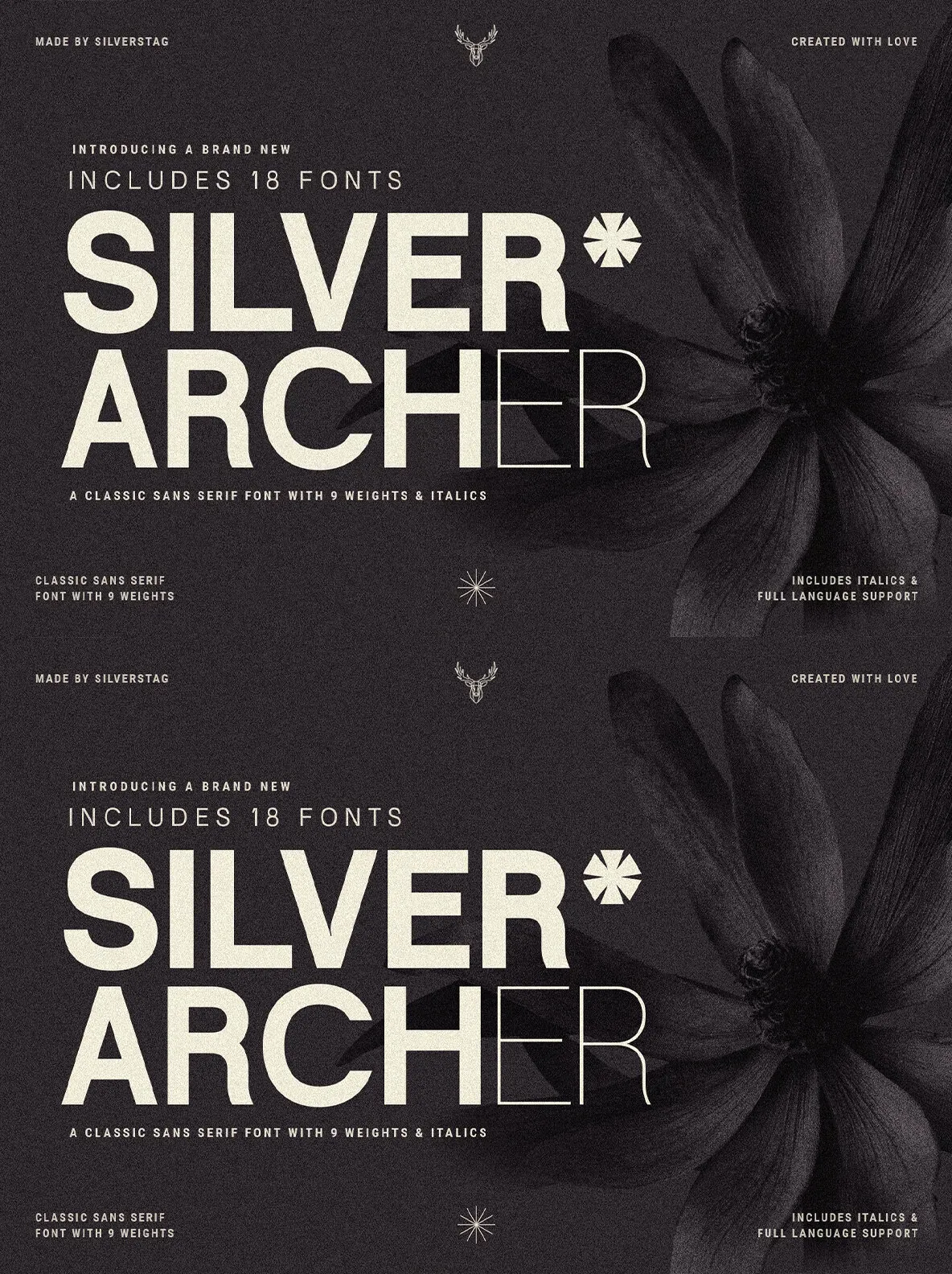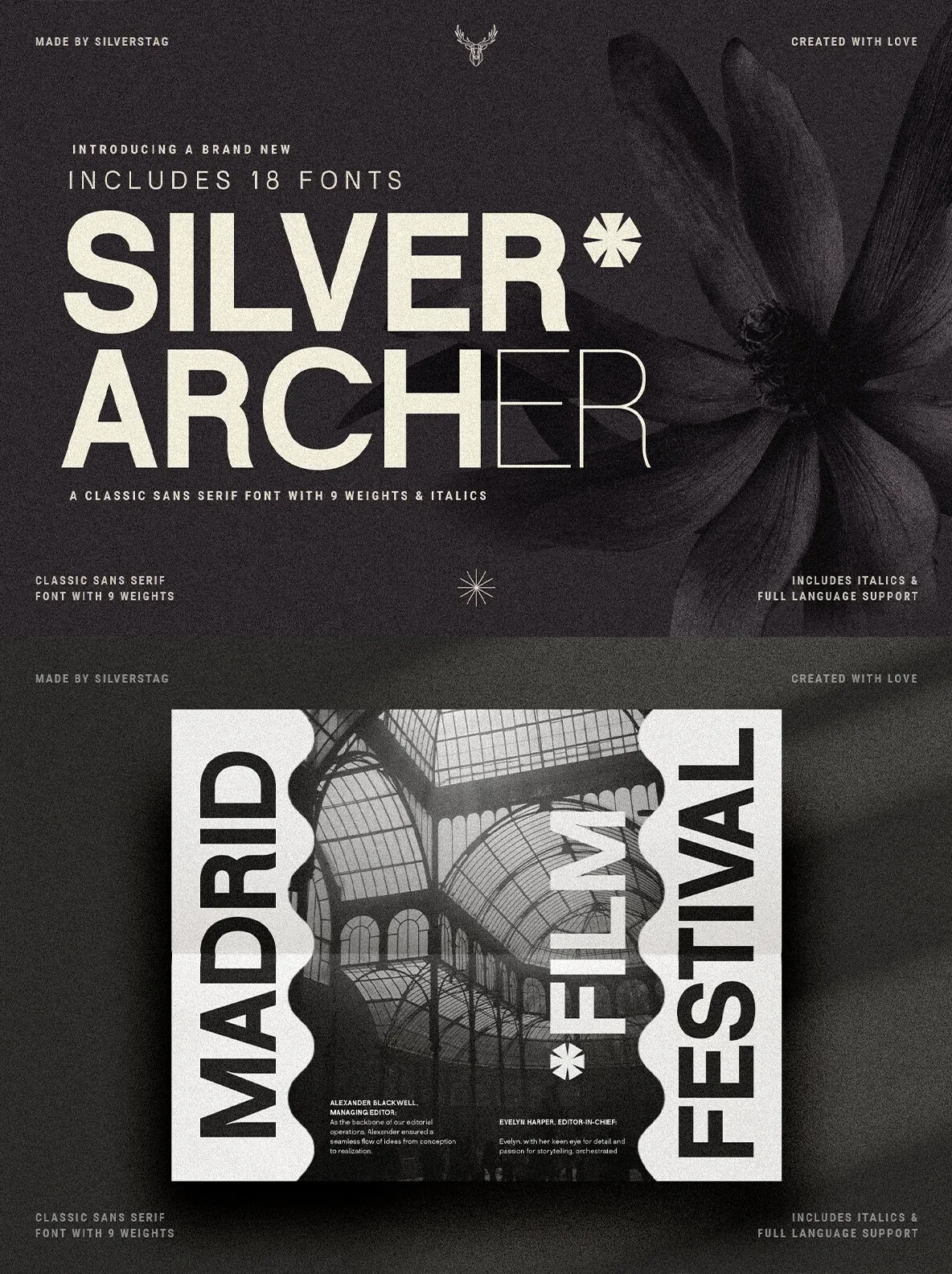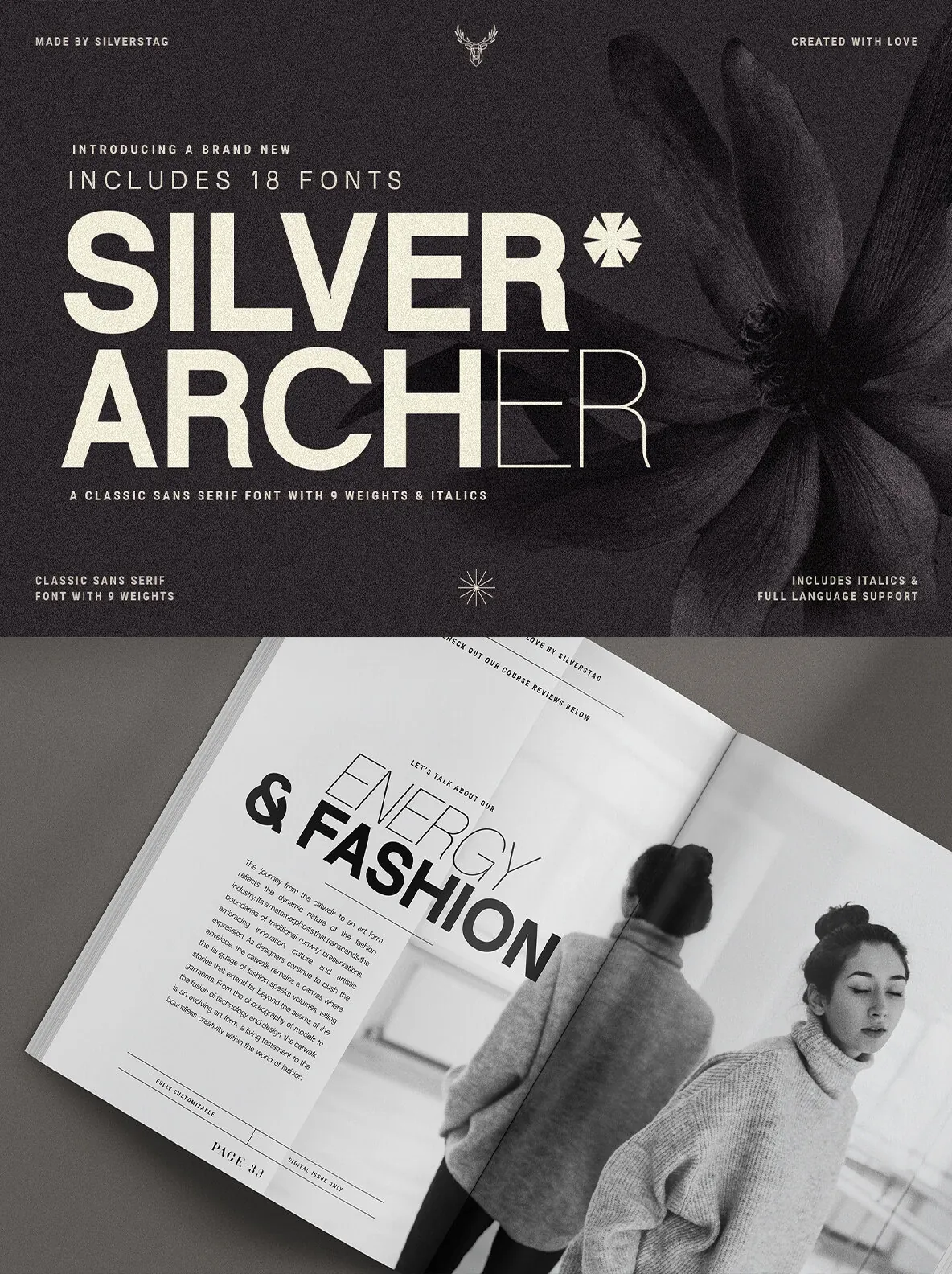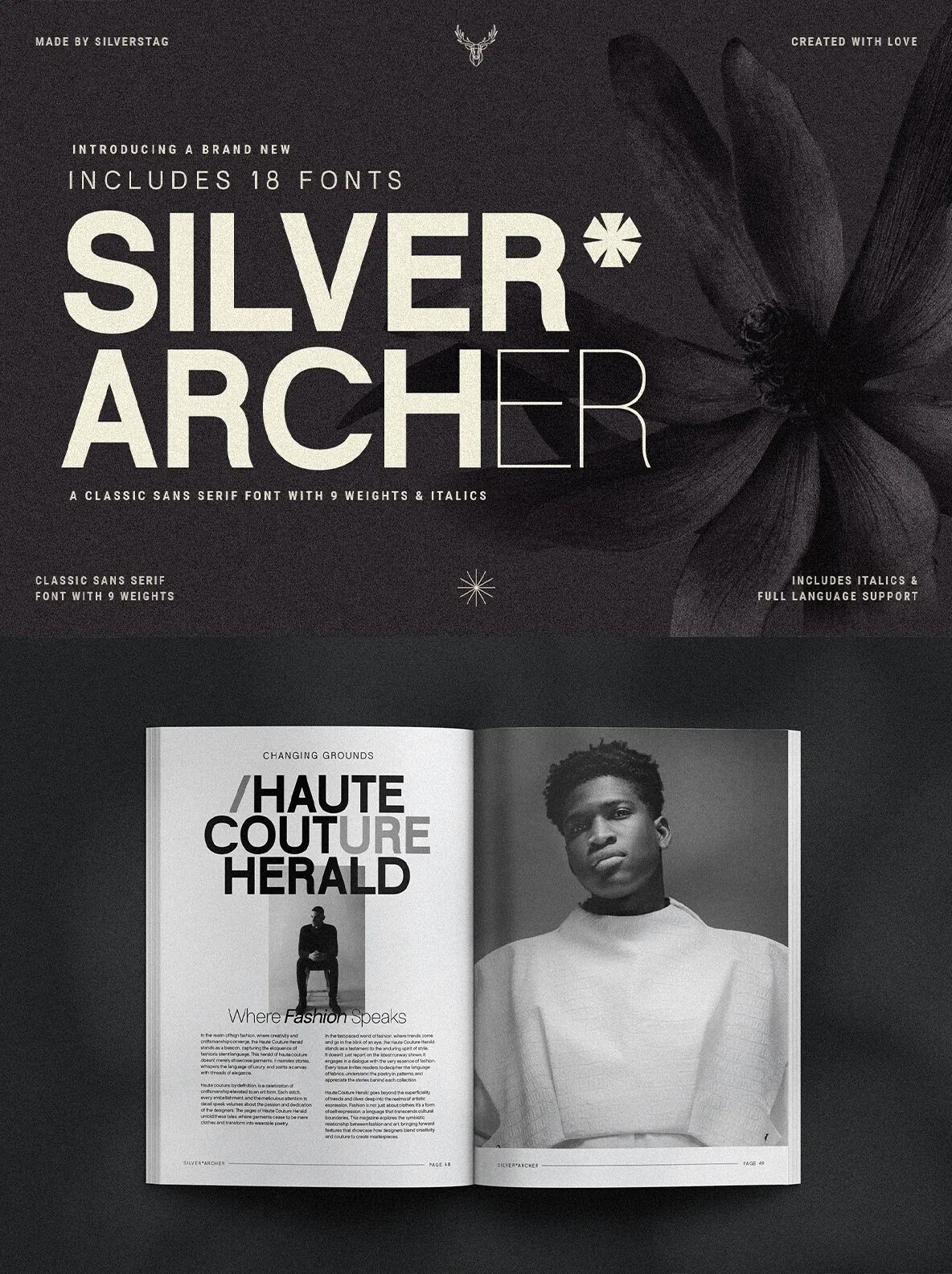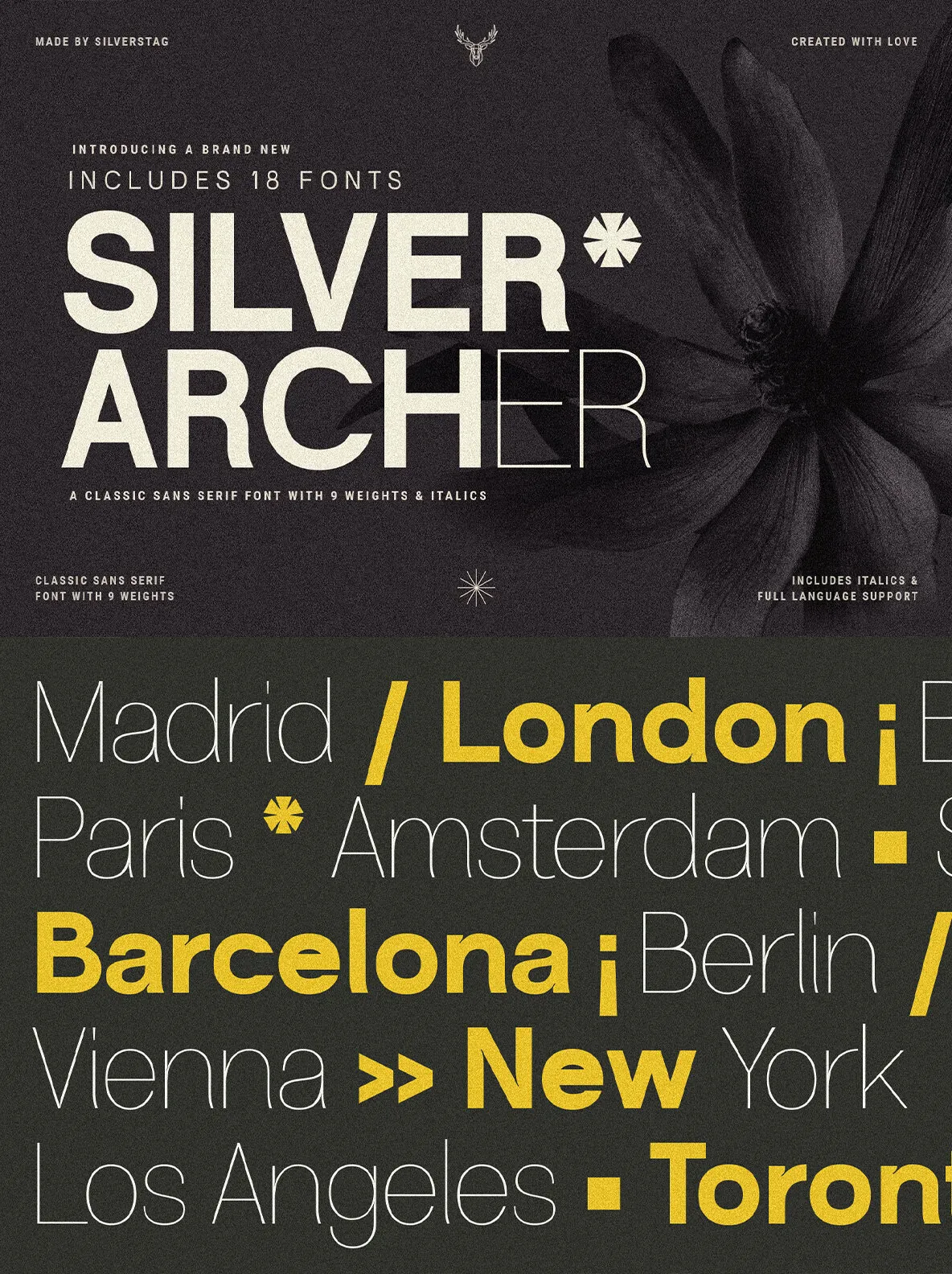
Silver Archer — Mid-Century Poise, Modern Use
In a world of fleeting trends, Silver Archer stands as a testament to enduring elegance and timeless design. Inspired by classic sans serif typefaces of the mid-20th century, it brings a measured, refined tone to a wide range of typographic applications. Use it where clarity matters and style must remain composed—editorial typography, branding systems, and everyday design work that benefits from a clean, sophisticated sans serif.
Meticulously drawn proportions and harmonious stroke contrast give Silver Archer a steady balance between traditional aesthetics and contemporary sensibilities. Open counters and a generous x-height support excellent legibility on screen and in print. The family includes nine weights, from Thin to Black, and each weight comes with an italic counterpart, giving you flexible typographic hierarchy for everything from captions to display settings.
Silver Archer also includes comprehensive language support spanning over 90 languages. This makes it a dependable choice for multilingual typography, helping teams keep tone and consistency across regions. Whether it appears on a book cover, anchors a corporate identity, or guides users through a digital interface, Silver Archer blends tradition and modernity with quiet, lasting sophistication.